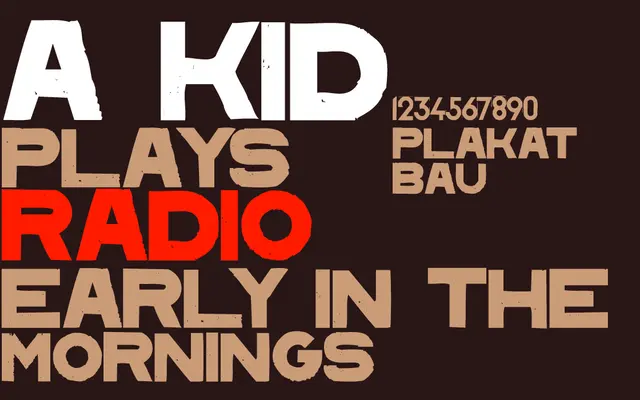
BD Plakatbau
Type Different · Büro Destruct · 1995
A minimal all-caps geometric display face from Büro Destruct, recognised from its use on several Radiohead album covers.
Released in 1995, this was one of the earliest typefaces from Büro Destruct and remains their most widely recognised, in part through its association with Radiohead's album artwork. The character set is extremely limited, covering basic Latin and a handful of German umlauts, making it a purely display proposition. Available as a free download for personal use, with a commercial licence available to purchase.
An all-caps geometric display face with a minimal character set, designed in a bold placard style consistent with constructivist and Swiss poster traditions.